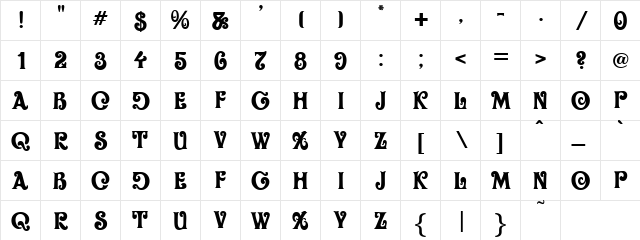
Gutkha Regular
Design Context for Gutkha Typeface
Gutkha is a composed and adaptable typeface that performs quietly and consistently across a wide range of design contexts.